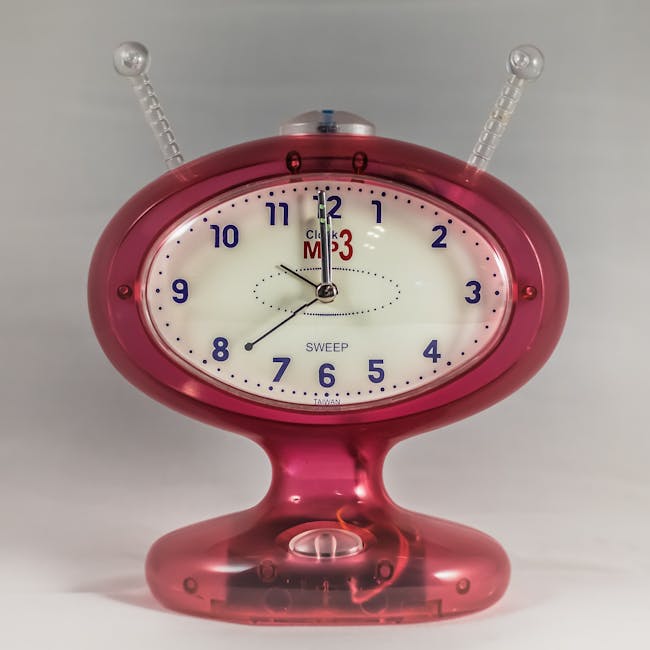
What is Number Fonts?
When it comes to designing a brand, every detail matters, and number fonts are no exception. These are the unsung heroes that contribute to a cohesive visual identity, influencing everything from logos to marketing materials. In this post, I’ll explore the world of number fonts, shedding light on their significance in design and how they can enhance your brand.
Understanding Number Fonts
Number fonts, simply put, are the specific styles of numerals used in typography. They hold an essential place in design, especially when numbers are a significant part of a brand’s identity. Whether it’s the year a company was founded or a specific product code, the right number font can speak volumes about a brand’s personality.
The Anatomy of Number Fonts
Understanding the anatomy of number fonts is crucial for making informed design choices. Fonts are composed of several elements, including ascenders, descenders, and the baseline. Ascenders are the parts of a letter that extend above the font’s x-height, while descenders drop below the baseline. The baseline itself is the line upon which most letters sit. Each component plays a pivotal role in how numbers look and feel within a specific font.
Types of Number Fonts
Number fonts come in a variety of styles, each bringing a unique vibe to the table:
Serif: Known for their small “feet” or lines at the ends of characters, serif fonts offer a classic, elegant look.
Sans-serif: These fonts lack the decorative lines, providing a modern and clean appearance.
Script: Mimicking cursive handwriting, script fonts are often used for a more artistic or personal touch.
Decorative: These fonts break the mold with creative flourishes and are often used for special occasions or unique branding needs.
Choosing the Right Number Font for Your Brand
Selecting the right number font can be as critical as choosing your brand’s color palette. It’s about finding a visual language that resonates with your audience and aligns with your brand’s ethos.
Factors to Consider
When picking a number font, several factors should be weighed:
Readability: Your audience should be able to read numbers at a glance, especially on digital platforms.
Style Consistency: Ensure that the font style complements other elements of your brand’s design.
Emotional Impact: Fonts carry psychological weight. A serif font might evoke tradition, while a sans-serif could suggest modernity.
These factors tie directly into font psychology, where every choice can influence perception.
Matching Number Fonts with Logo Design
A logo isn’t just a symbol; it’s a statement. The numbers within a logo can be enhanced by choosing a font that complements the overall design. For instance, a tech startup might opt for a sleek sans-serif to convey innovation, while a luxury brand might choose a serif to exude elegance.
Popular Number Fonts in Brand Design
Certain number fonts have gained popularity due to their versatility and aesthetic appeal across industries. Fonts like Helvetica and Futura have become staples due to their timeless design and adaptability.
Case Studies of Successful Brands
Looking at successful brands, one can see the strategic use of number fonts. For example, the watch brand Rolex uses a classic serif font in its logos and marketing, reinforcing its heritage and luxury status. Similarly, Nike’s choice of bold, sans-serif fonts underscores their image of strength and innovation.
Trends in Number Fonts for Modern Branding
Current trends indicate a move towards minimalist and versatile fonts, aligning with the broader shift towards simplicity in design. As brands navigate the digital landscape, fonts that are clear and adaptable across mediums are gaining traction.
Conclusion and Final Thoughts
Choosing the right number fonts is more than an aesthetic decision; it’s a strategic one that can define how your brand is perceived. As you explore options, think about how these choices align with your brand’s voice and message. Remember, every detail—from the numbers in your logo to the typography on your website—contributes to the story your brand tells. Dive into this detailed resource on number fonts to further enhance your brand’s design.